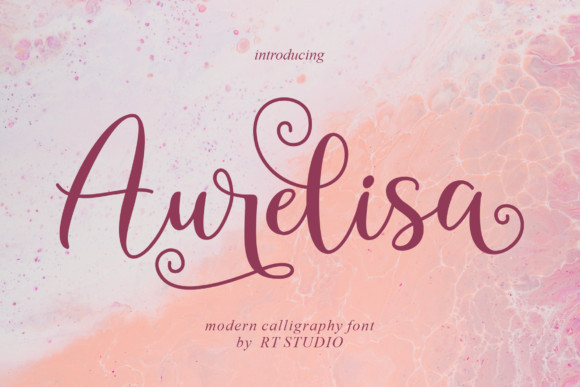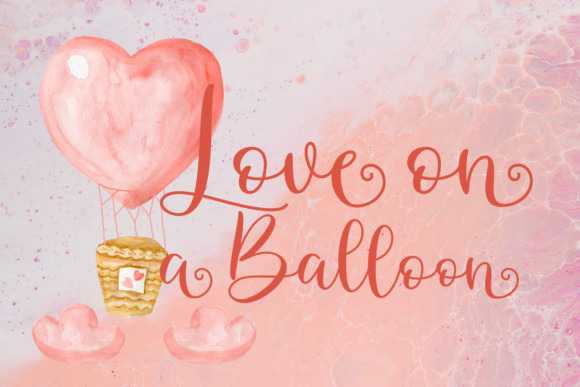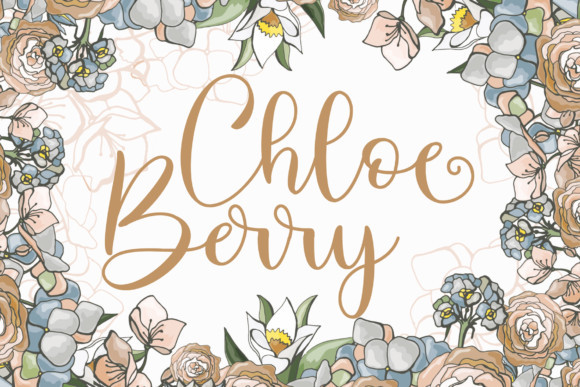
Aurelisa Font
Aurelisa is a delicate and elegant handwritten font. Its distinct and well rounded letters make this font a masterpiece. Add it confidently to your projects, and you will love the results.